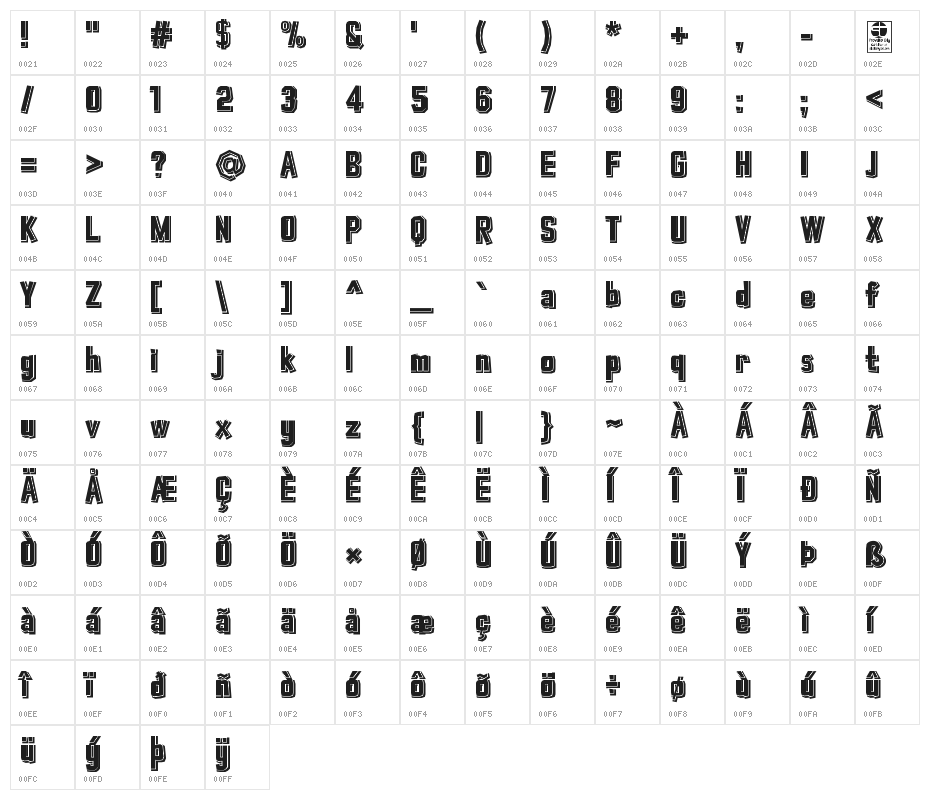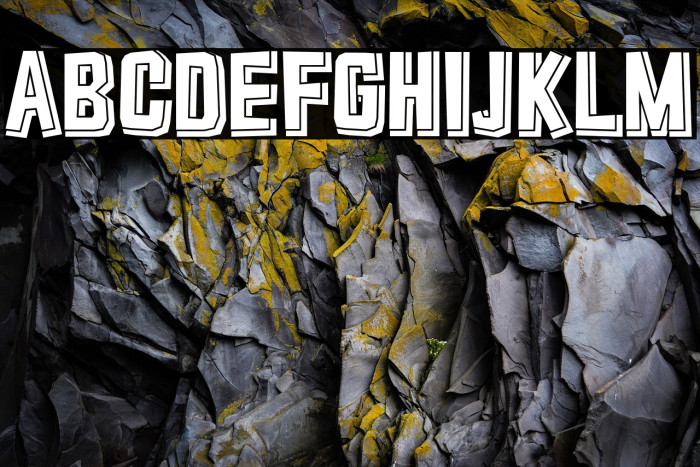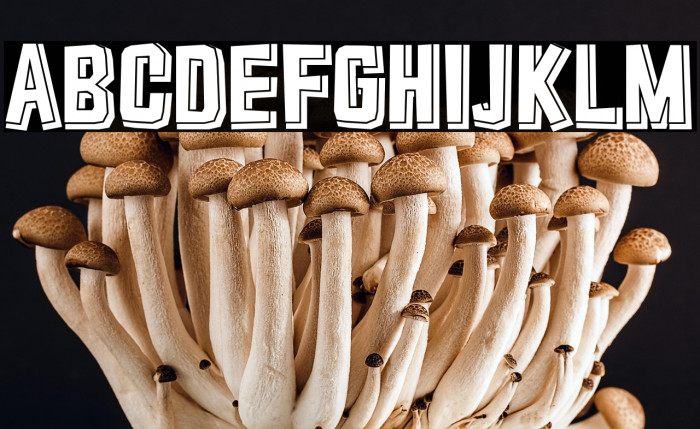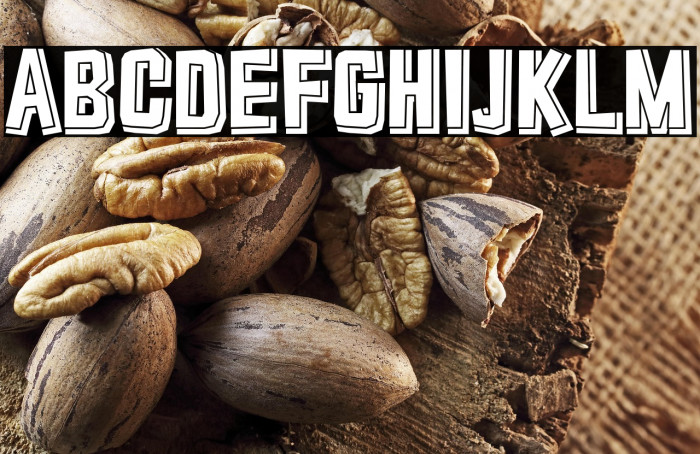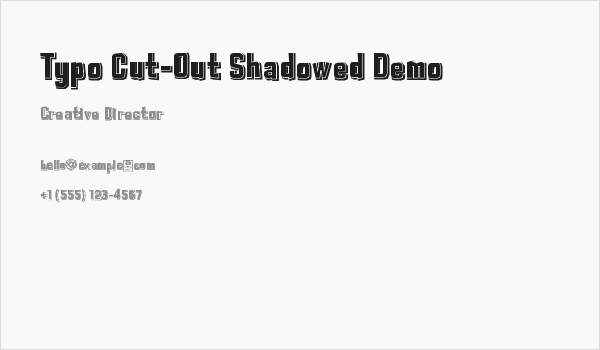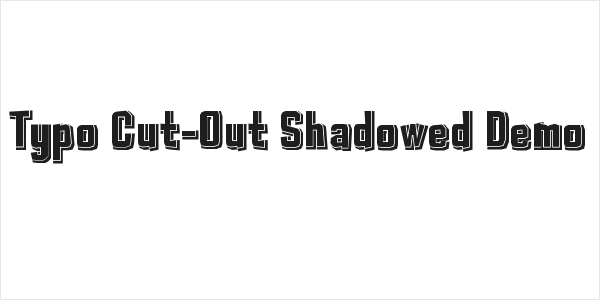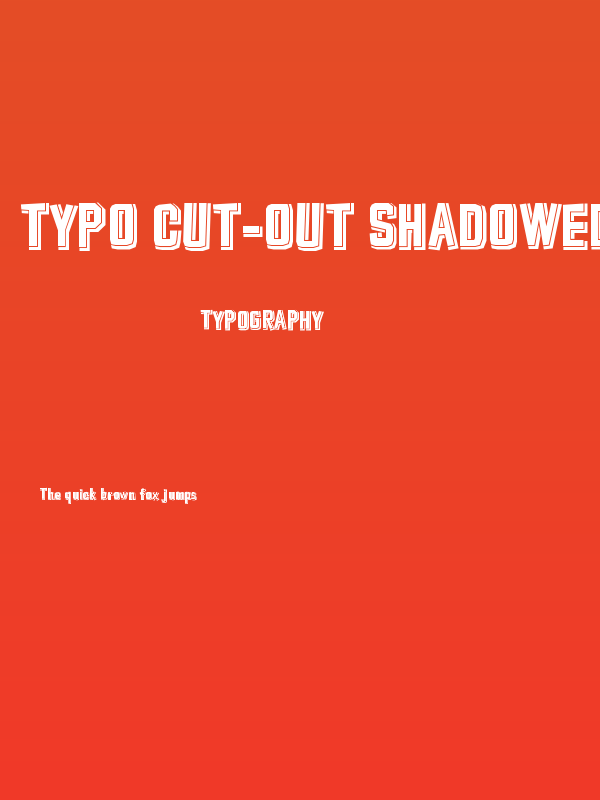
Typo Cut-Out Shadowed Demo Font
Typo Cut-Out Shadowed Demo Description
This font features a bold, shadowed style with a cut-out effect that gives it a three-dimensional appearance. The uppercase and lowercase letters, as well as numbers and special characters, are designed with a strong, impactful presence. The shadowing adds depth, making it ideal for eye-catching designs. The characters are well-defined with a consistent thickness, contributing to its bold and striking look. This font is perfect for projects that require a standout, decorative typeface with a modern twist.